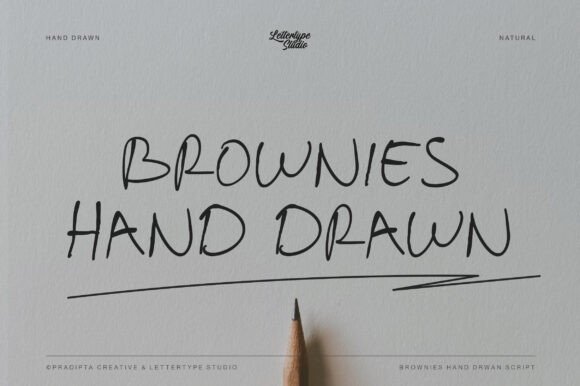
The Perfect Blend of Handwritten Charm
As a designer, there’s nothing quite like the thrill of brainstorming a new project, surrounded by scribbled notes and half-baked ideas. It’s in these moments of creative chaos that the perfect font can make all the difference – elevating your design from good to great, and adding a personal touch that sets it apart. For those seeking a unique voice, the Brownies Handdrawn Font has become a go-to choice for designers looking to inject some warmth and character into their work.
With its natural, bold, and quote-worthy style, the Brownies Handdrawn Font seamlessly blends delicate swashes with robust strokes, offering a spectrum of authentic handwriting that’s perfect for branding, invitations, and expressive typography. Whether you’re looking to add a touch of whimsy or create a lasting impression, this versatile font is a valuable addition to any designer’s toolkit.
Brownies Handdrawn Font Key Features
- Unique Hand-Drawn Style: This font features a distinctive, hand-drawn aesthetic with intricate details and imperfections, giving it a personal and charming feel.
- Character Count: Includes over 300 characters, including uppercase and lowercase letters, numbers, and punctuation marks.
- Font Style: Features a single font style, with no bold or italic variations, allowing for a consistent and cohesive look.
Review of Brownies Handdrawn Font
Overall, I think Brownies Handdrawn Font is a lovely addition to any designer’s toolbox. ✨ The font’s playful, hand-drawn style is perfect for creating a warm and inviting feel in branding, signage, or even digital products. The font’s imperfections and quirks give it a unique charm that’s hard to find in more polished, commercial fonts.
One of the things that stands out about Brownies Handdrawn Font is its versatility. ✨ It can be used in a variety of contexts, from casual, handwritten text to more formal, elegant headings. The font also comes with a wide range of weights and styles, making it easy to find the perfect look for your project.
While Brownies Handdrawn Font is a great addition to any designer’s toolbox, there are a few limitations to keep in mind:
- ⚠️ Limited language support: The font may not support all languages, which could be a problem for international projects.
- ⚠️ Limited character set: The font may not include all the characters you need for certain projects, such as symbols or punctuation marks.
In general, I think Brownies Handdrawn Font is a solid choice for designers looking for a unique, hand-drawn font. While it may have some limitations, its versatility and charm make it a great addition to any project.
To get the most out of the Brownies Handdrawn Font, use it for:
– Handwritten-style titles and headings.
– Casual, friendly-looking text.
– Adding a personal touch to your designs.
The Brownies Handdrawn Font is ideal for:
– Social media graphics.
– Blog posts and articles.
– Party invitations and decorations.
– Personalized gifts and cards.